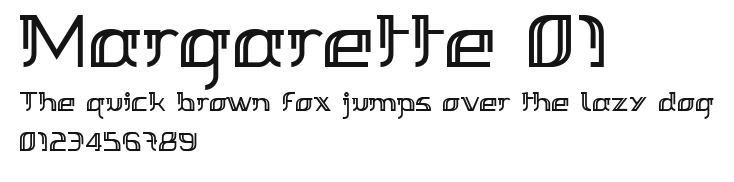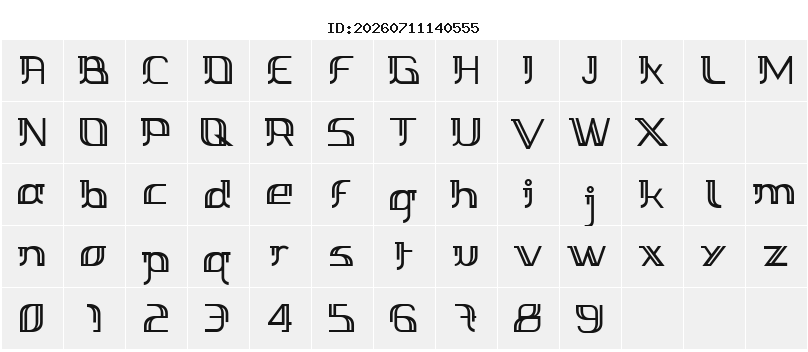
Margarette 01 Preview
About Margarette 01.ttf
Margarette 01.ttf is a modern, elegant sans-serif font designed for ultimate readability and visual harmony. Perfect for branding, headlines, web design, and print materials.